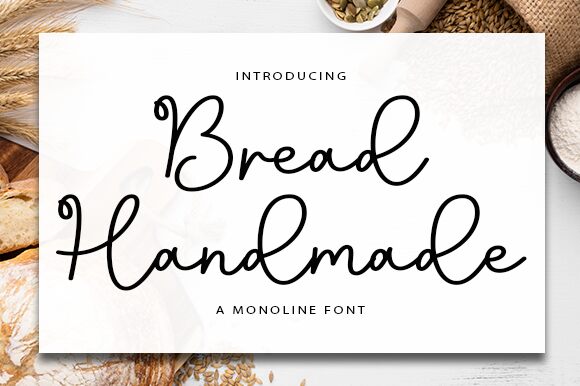
Bread Handmade, designed by Wahyu Studio, is a charming and delightful monoline handwritten font. With its light weight, this cute typeface captures the essence of handmade love and adds a touch of whimsy to any project.
Perfect for children's book covers, playful logos, or greeting cards, Bread Handmade brings an endearing appeal to your designs. Its organic strokes and unique character make it ideal for crafting visually engaging social media posts or adding a personal touch to invitations and stationery.